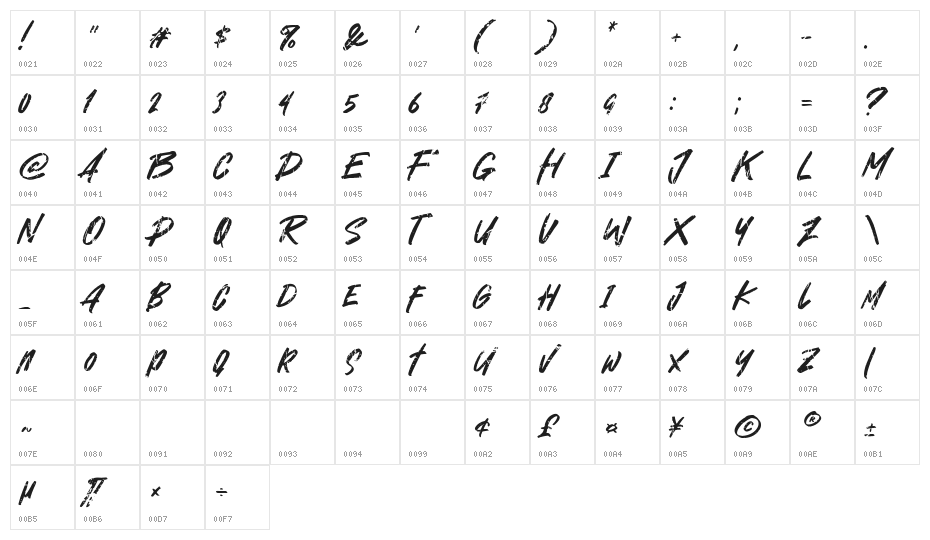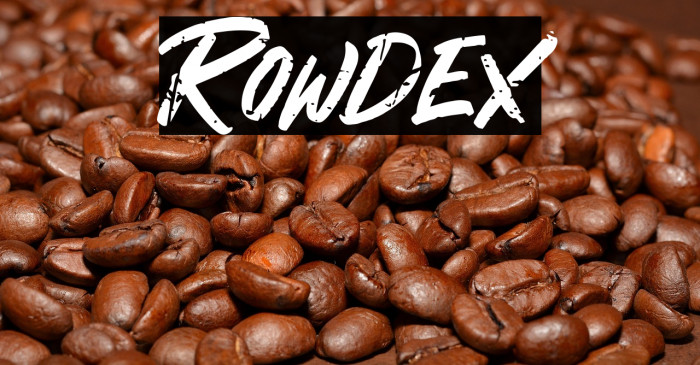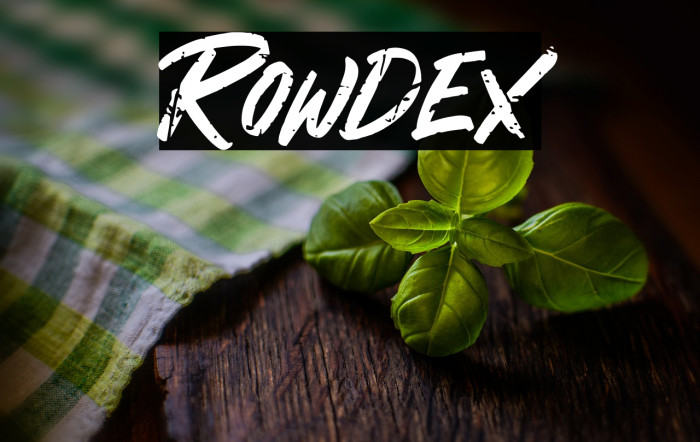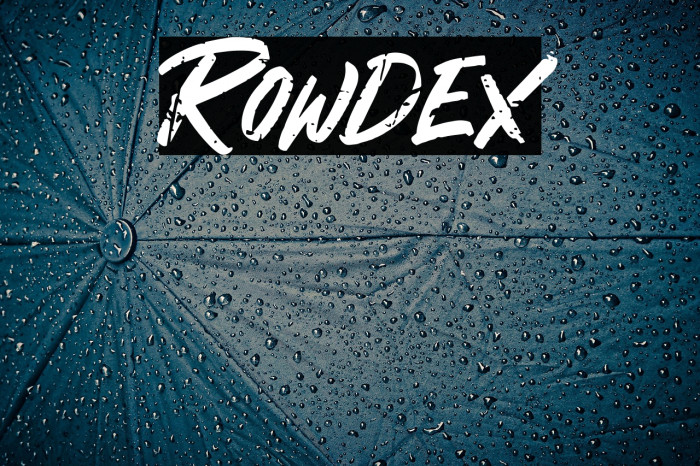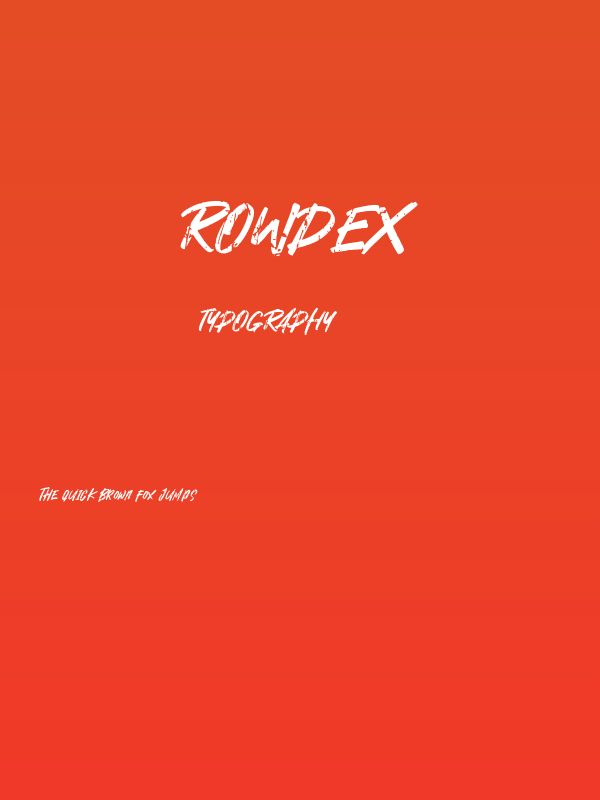
Rowdex Font
Rowdex Description
This font features a bold, distressed style with a brush-like texture that gives it a rugged and edgy appearance. The characters are dynamic and energetic, with uneven edges and a hand-painted look. The uppercase and lowercase letters maintain a consistent style, while the numbers and special characters complement the overall aesthetic. This font's unique texture and bold presence make it stand out, ideal for projects that require a strong visual impact.
| Overall Style | Modern, Decorative |
| Proposed Projects | Ideal for posters, album covers, streetwear branding, and any design that requires a bold, edgy statement. |